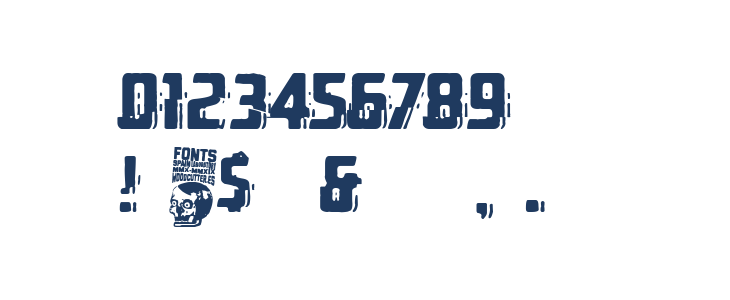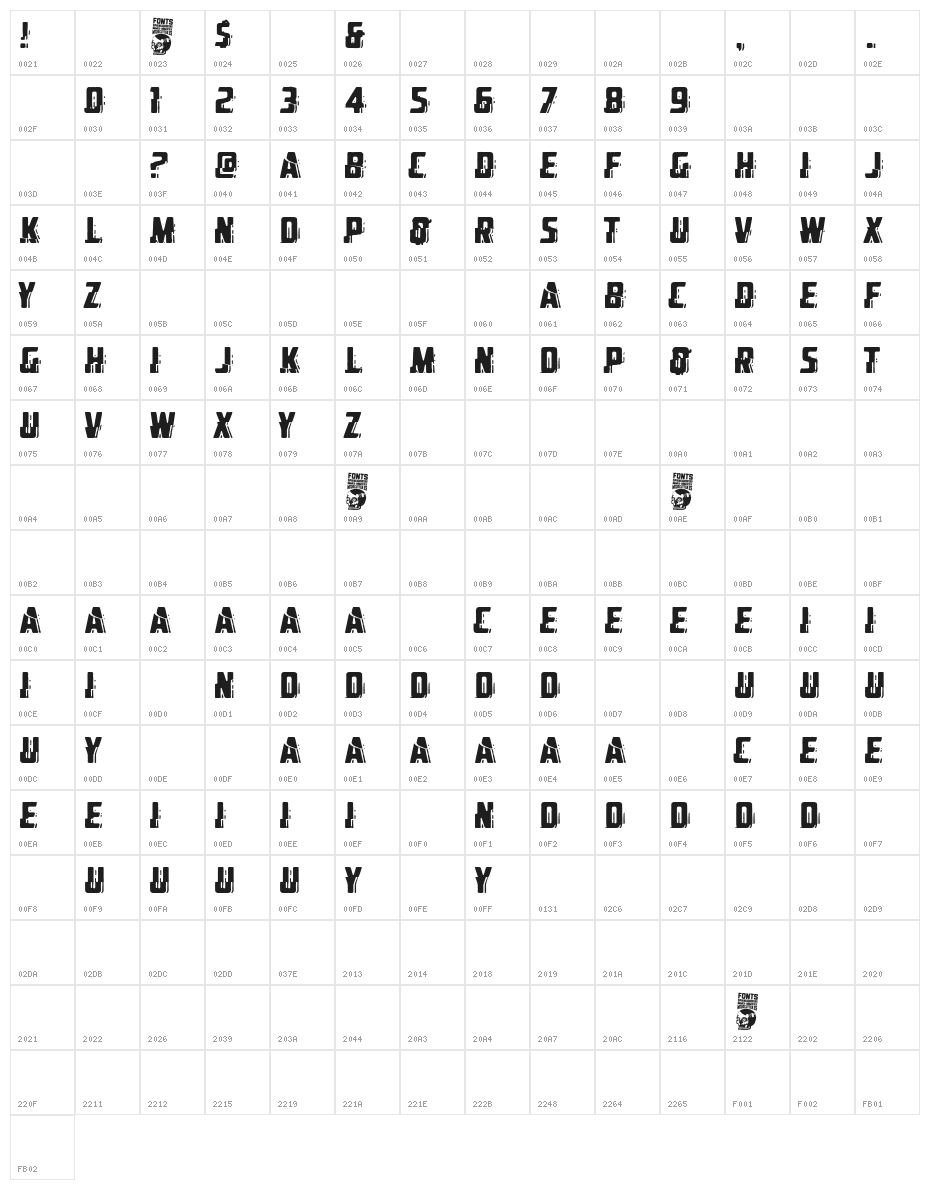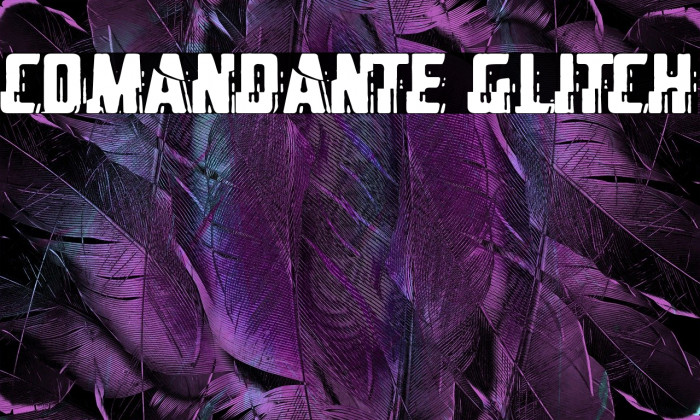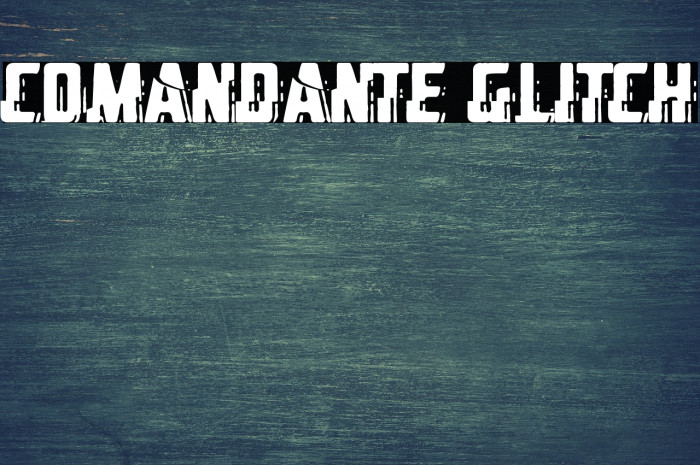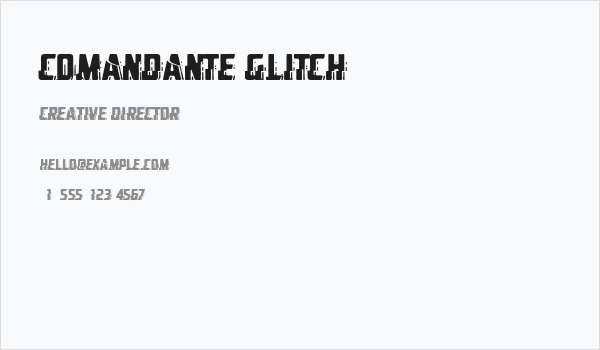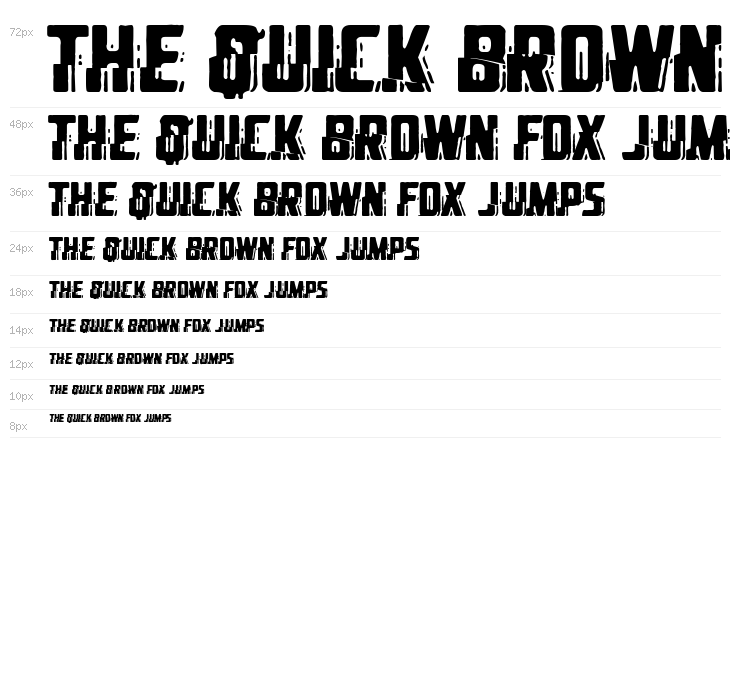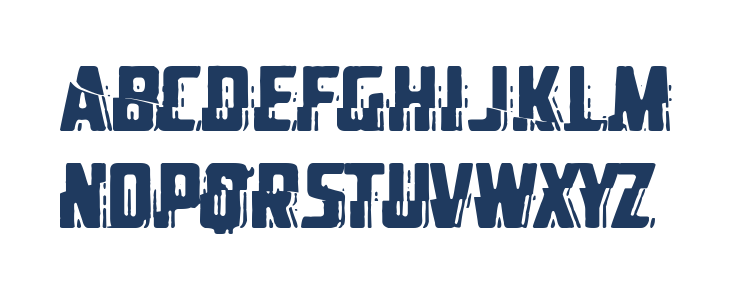
comandante Glitch Font
comandante Glitch Description
This font features a bold, distressed style with a glitch effect, giving it a rugged and edgy appearance. The characters are blocky and uppercase, with irregular edges and a worn texture that suggests a sense of decay or digital distortion. The font conveys a sense of rebellion and modernity, making it ideal for projects that require a strong, impactful visual statement. The numbers and special characters maintain the same distressed aesthetic, ensuring consistency across all text elements.
| Overall Style | Modern, Edgy |
| Proposed Projects | Ideal for music album covers, urban-themed posters, video game titles, and edgy branding projects. |